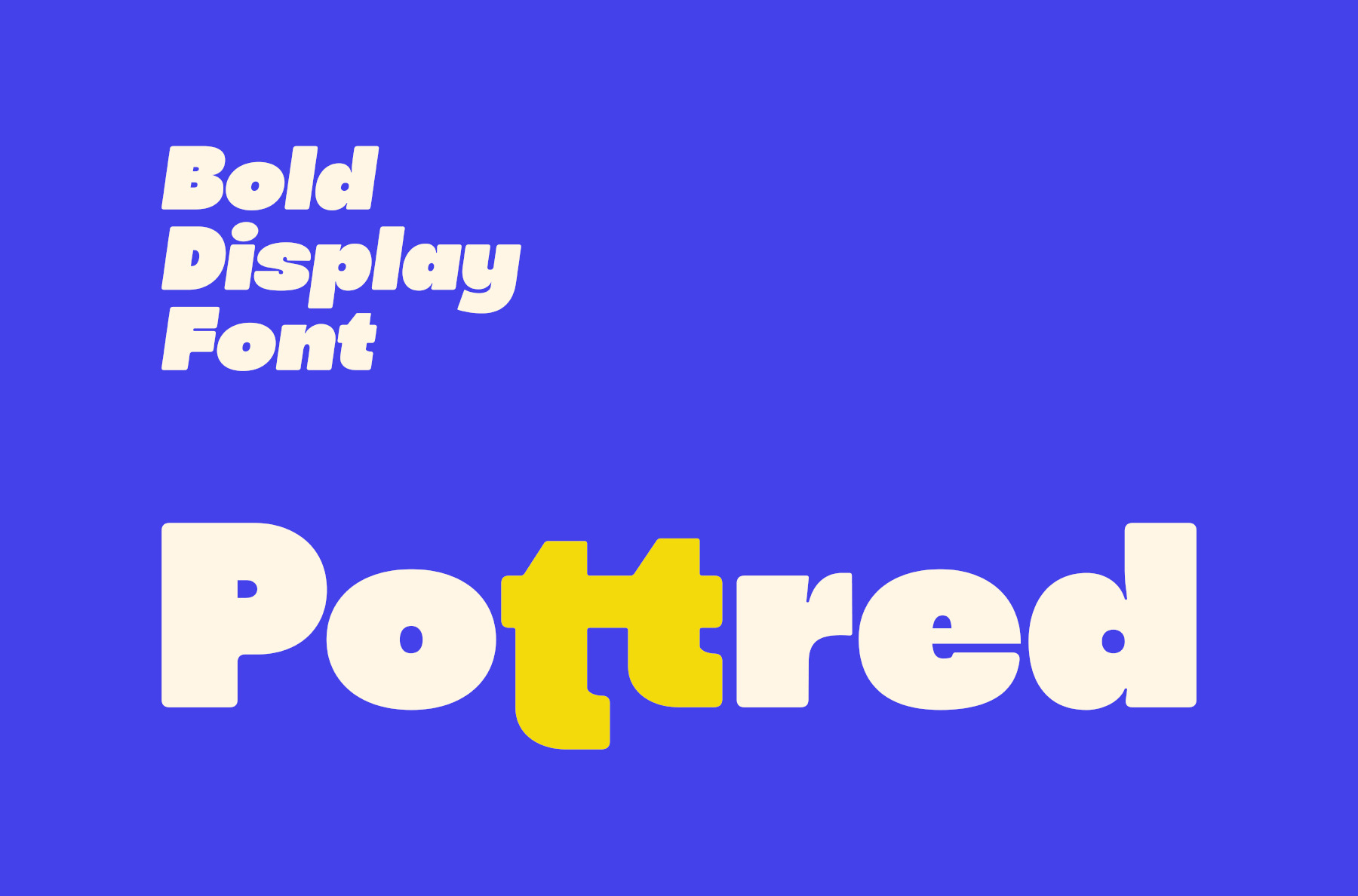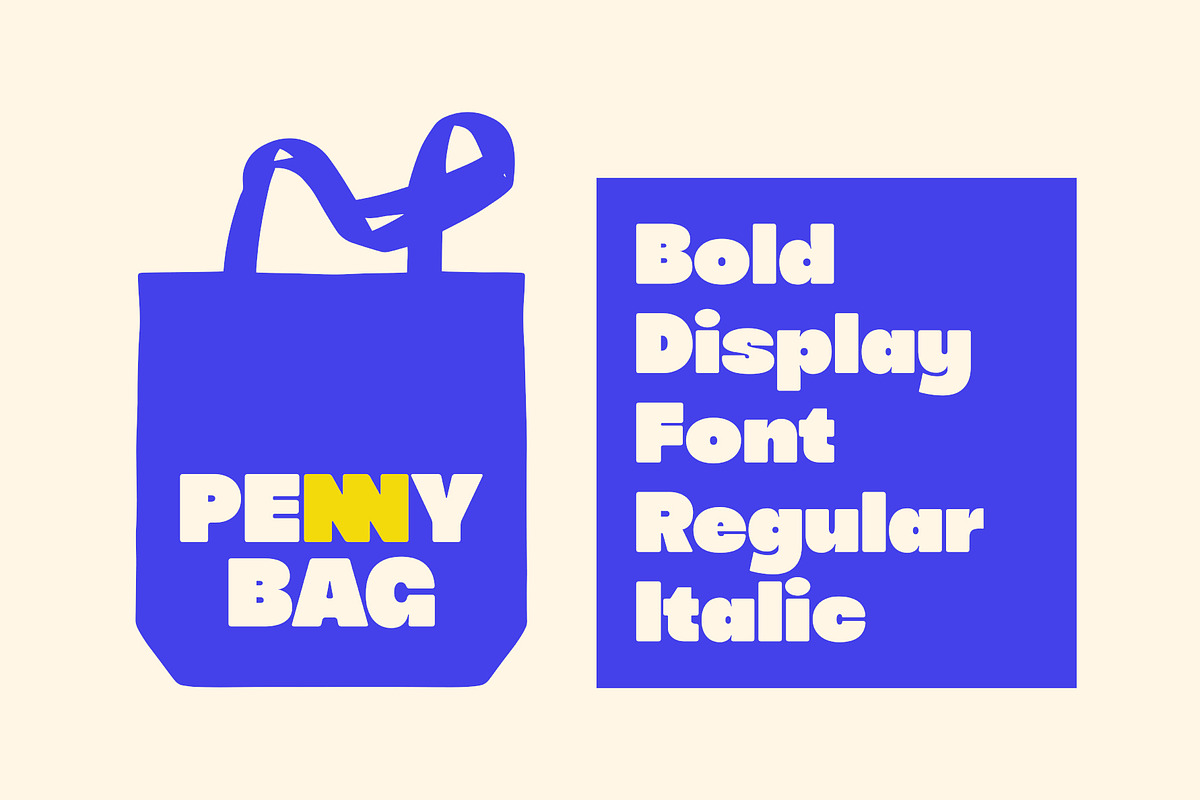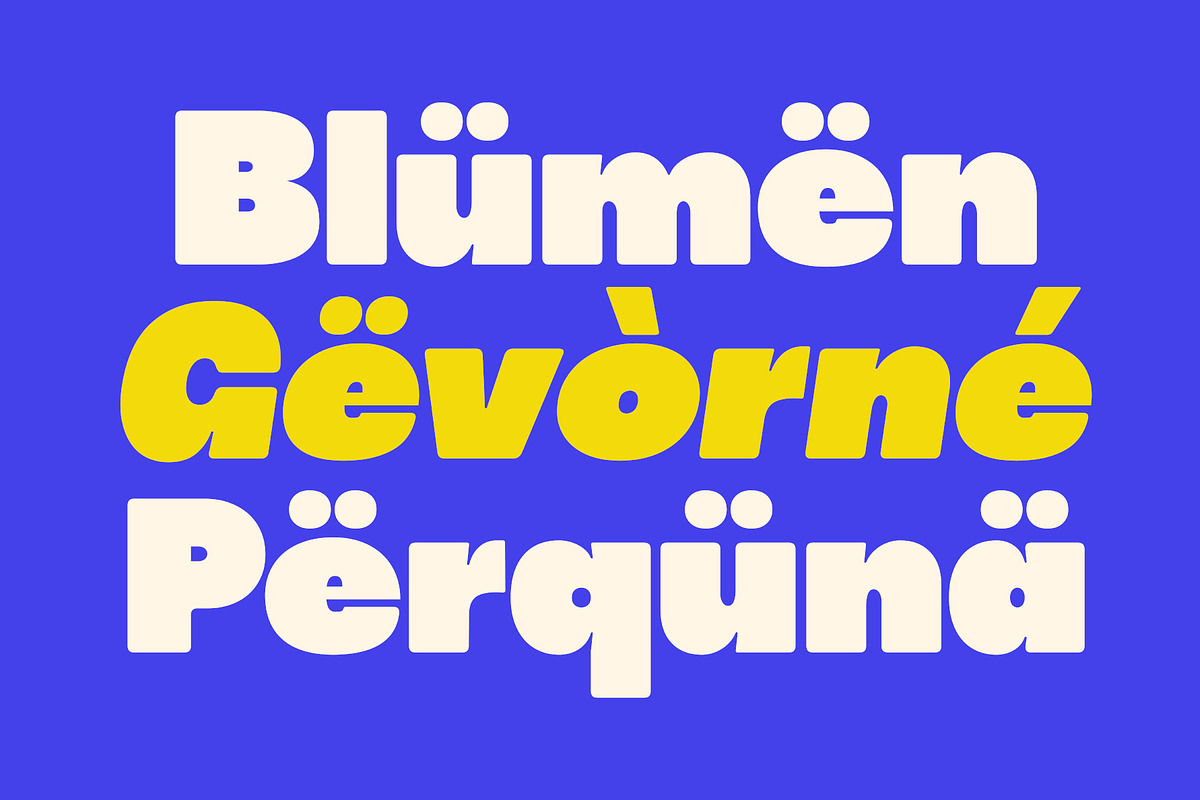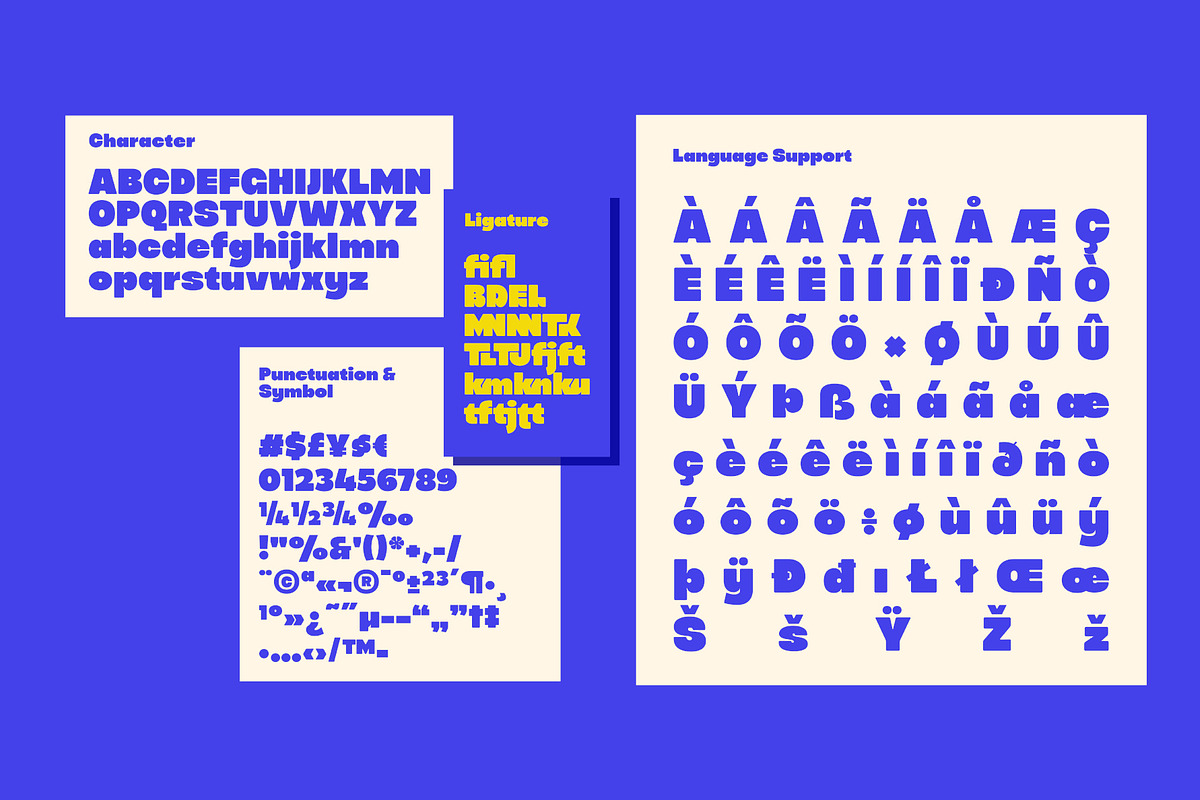
Pottred Bold Display Font
Meet Pottred, a bold and playful display font crafted to bring energy and personality to your designs. With its rounded shapes, strong curves, and modern retro vibe, Pottred is perfect for eye-catching headlines, logo designs, posters, branding projects, and packaging.
Whether you’re a designer looking for a statement typeface or a brand seeking a fun, friendly identity—Pottred delivers clarity and charm in every letter.
✔ Full uppercase & lowercase
✔ Numbers, punctuation, and multilingual support
Make your designs stand out with the bold confidence of Pottred!